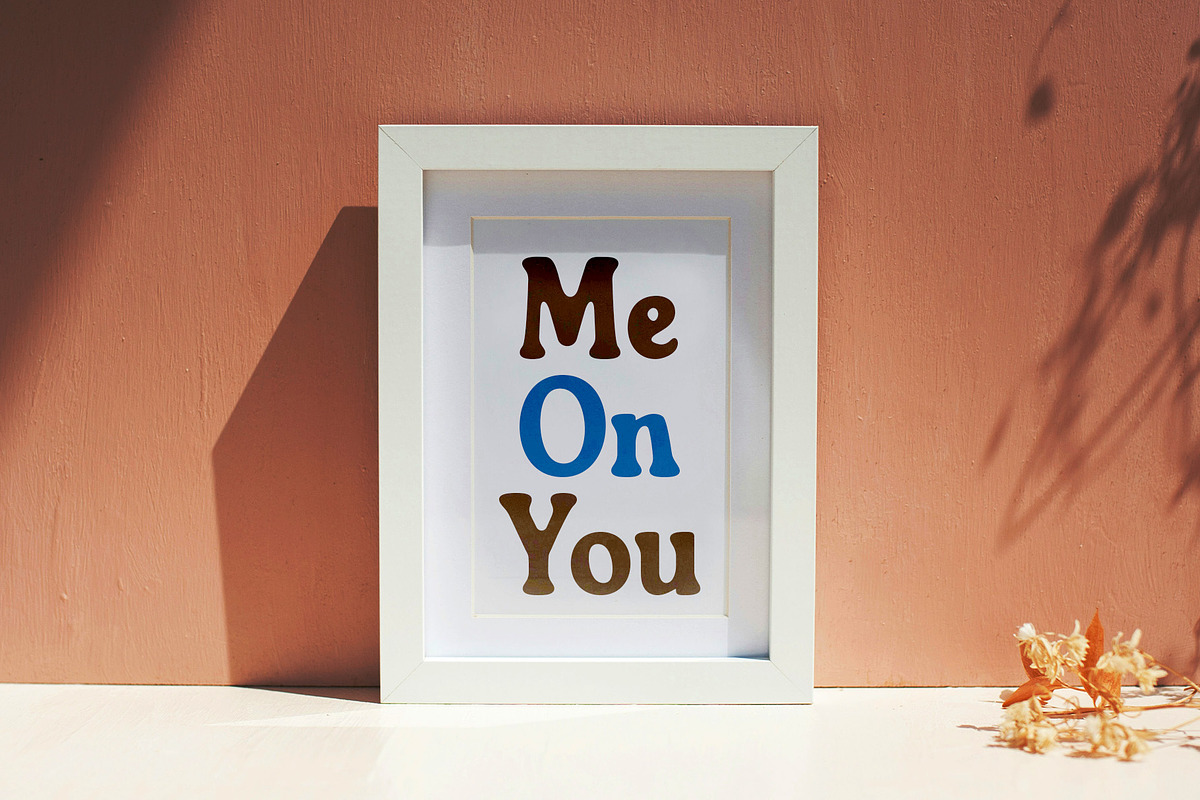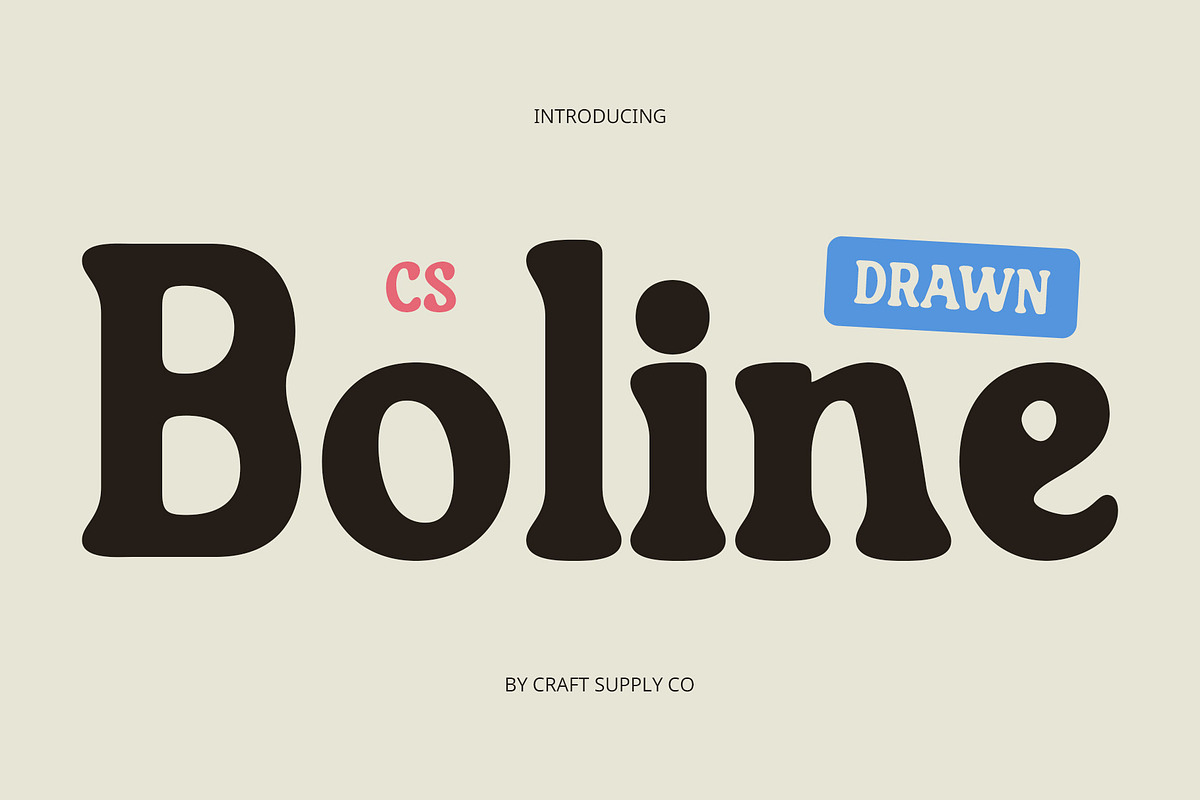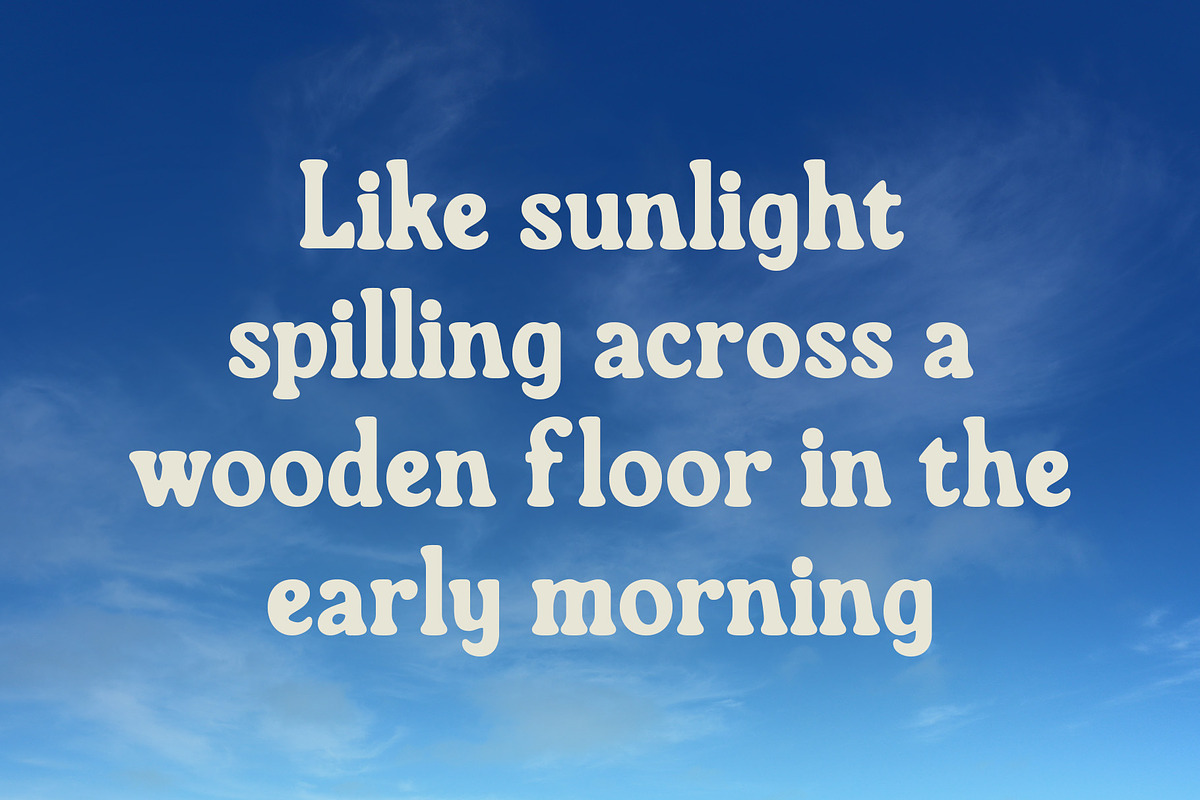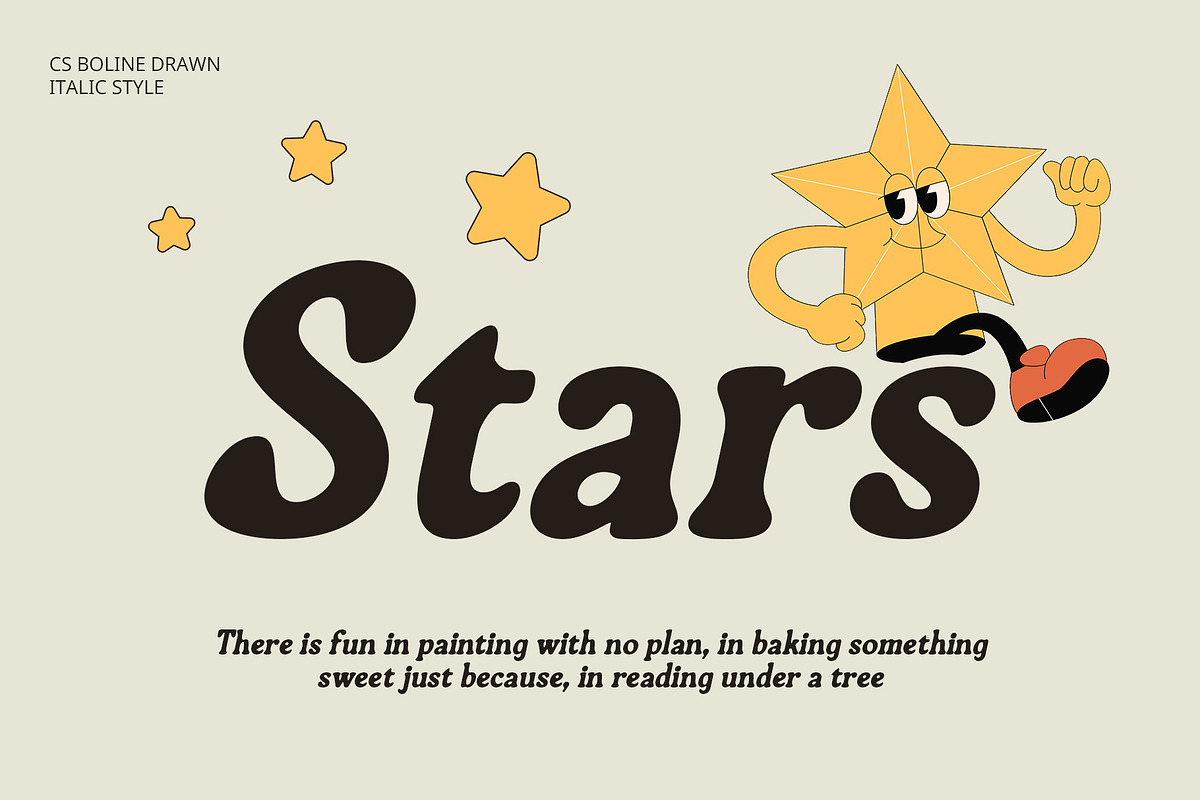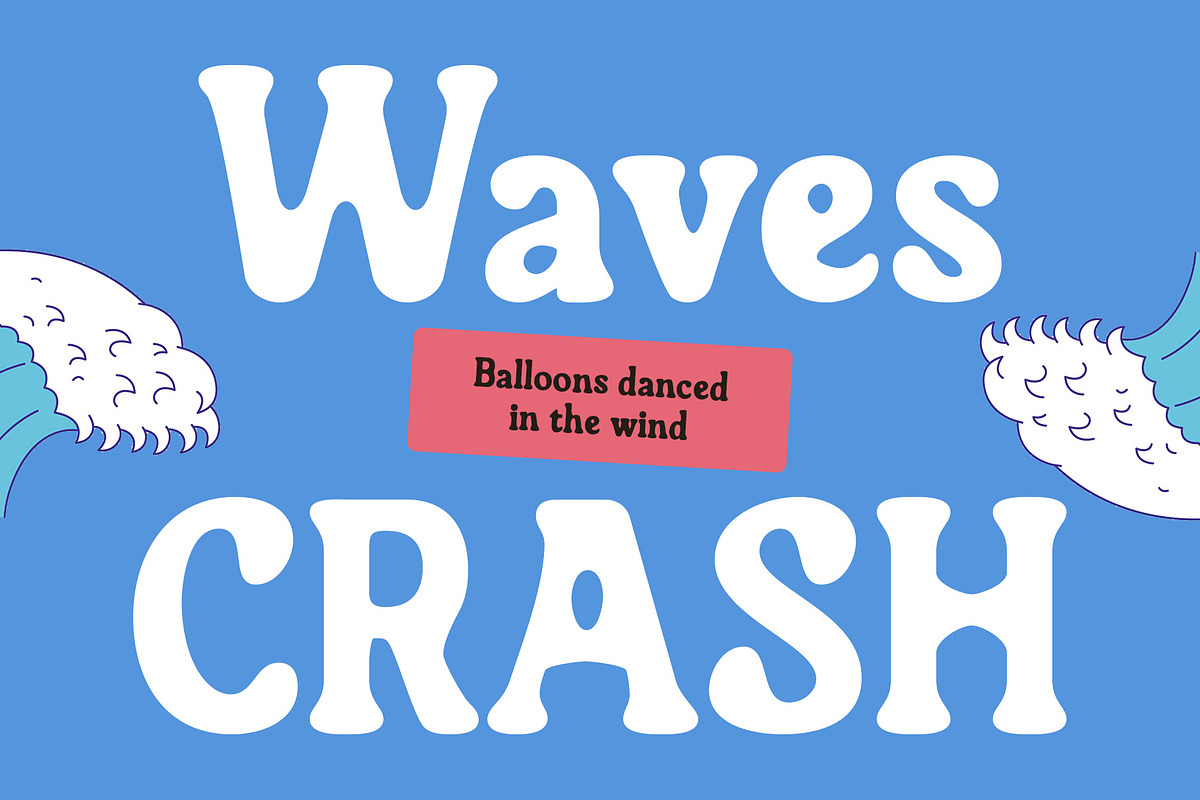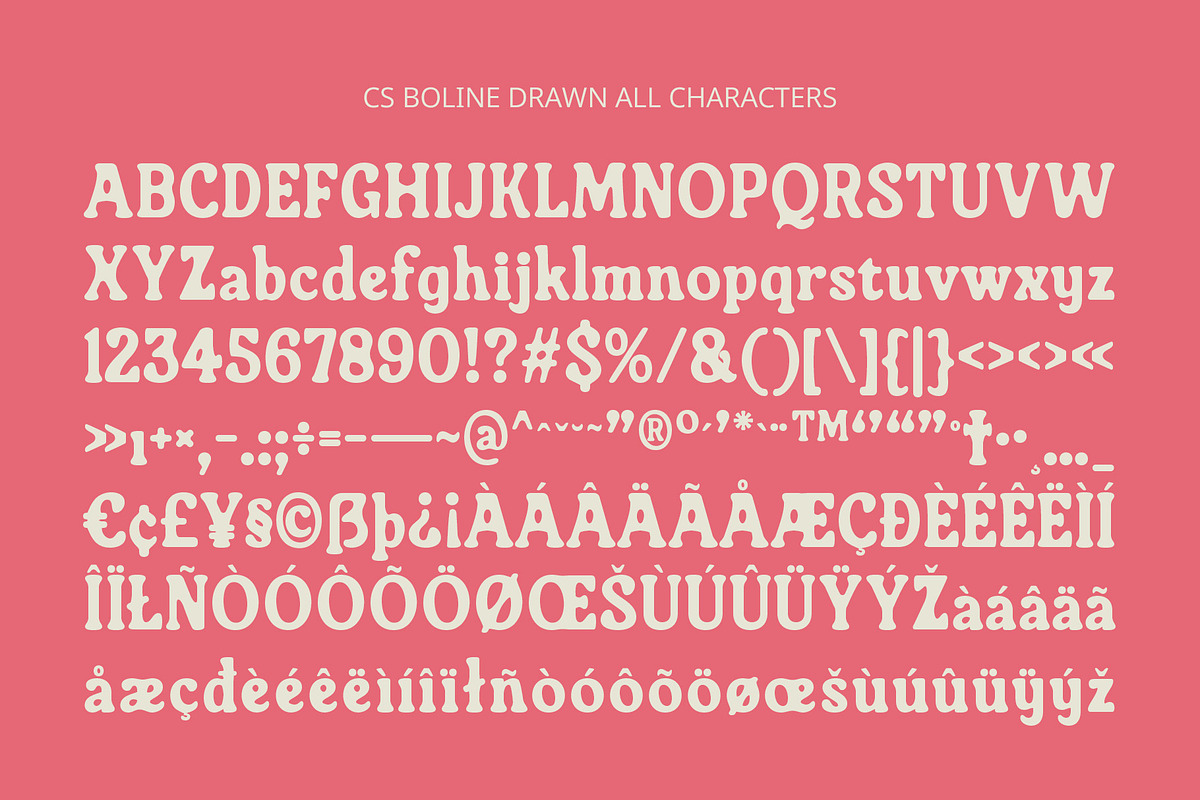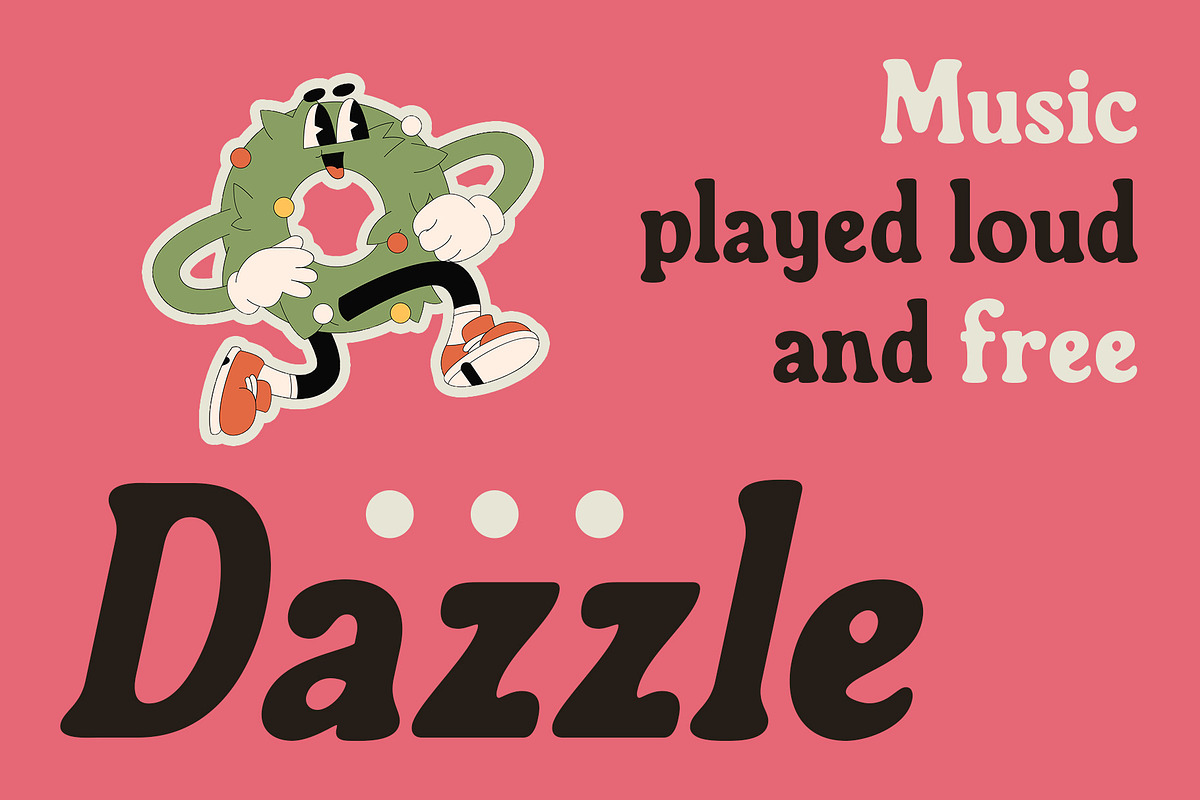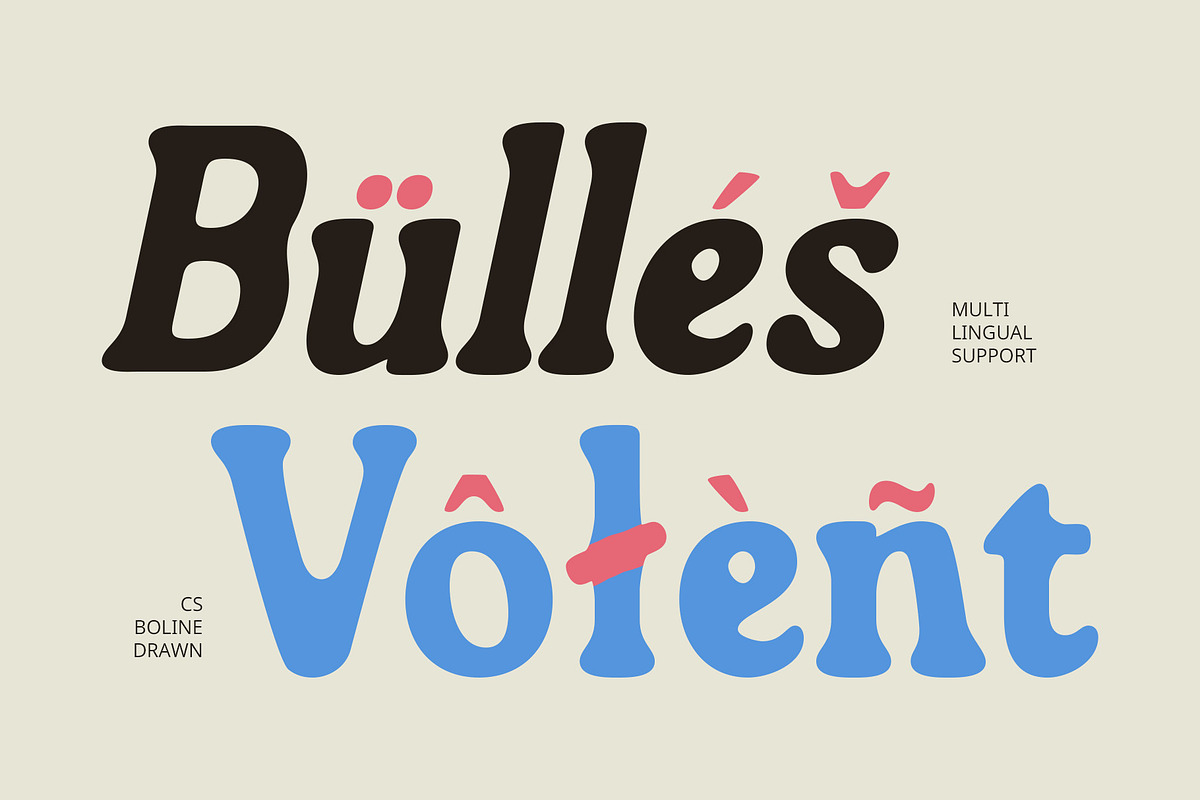
CS Boline Drawn
CS Boline Drawn – Retro Boldness with a Handcrafted Heart
Bold Serif Forms with Rounded Friendliness CS Boline Drawn is a display serif font that merges bold, eye-catching letterforms with soft, rounded terminals. This fusion creates a visual language that is strong yet approachable, striking a balance between confidence and charm. The font’s playful curves and sturdy build make it perfect for delivering messages with energy and personality.
Nostalgic 90s Vibe Reimagined Echoing the spirit of 90s retro design, this friendly font revives a distinctive visual style through exaggerated proportions and era-defining quirks. Its retro character is not just a nod to the past—it’s reinterpreted for contemporary creative use, giving designers a bold typographic tool with vintage soul.
Drawn Effect for Artistic Warmth The added drawn effect introduces an organic, handcrafted layer that enhances the font’s individuality. This textured finish brings warmth and authenticity to the overall appearance, making the font feel less mechanical and more human—perfect for projects that require a personal, expressive aesthetic.
Ideal for Bold and Character-Driven Design Whether you’re working on music posters, nostalgic packaging, or standout branding, this nostalgic font brings an undeniable presence to the page. It’s a font for creatives who want their typography to feel bold, joyful, and filled with expressive detail—combining artistic flair with playful retro roots.